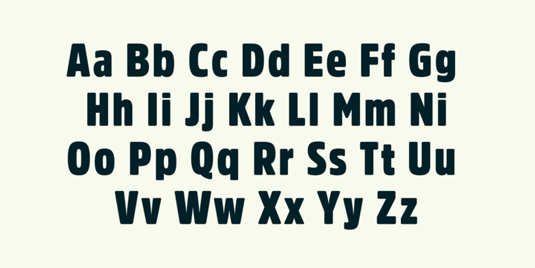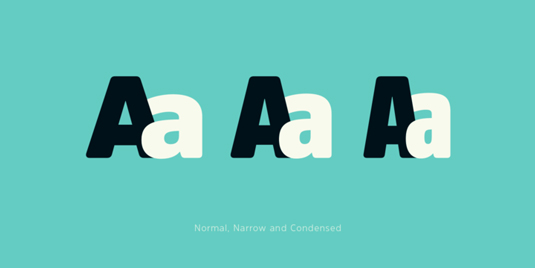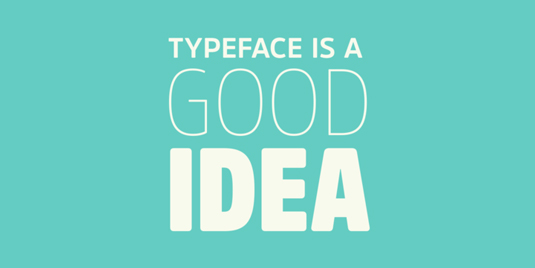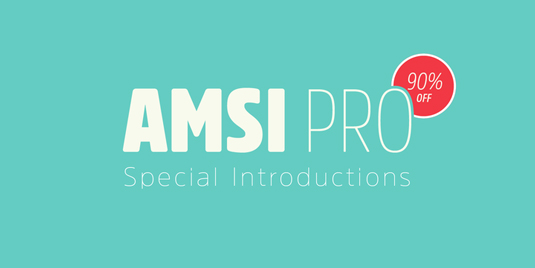
Font of the day: Amsi Pro
Amsi Pro by Stawix Ruecha
Inspired by the Block Berthold Condensed typeface, today's font of choice Amsi Pro was created by designer Stawix Ruecha of Stawix foundry. Available in three widths – normal, narrow and condensed – Amsi Pro is great for creating eye-catching headlines and titles.